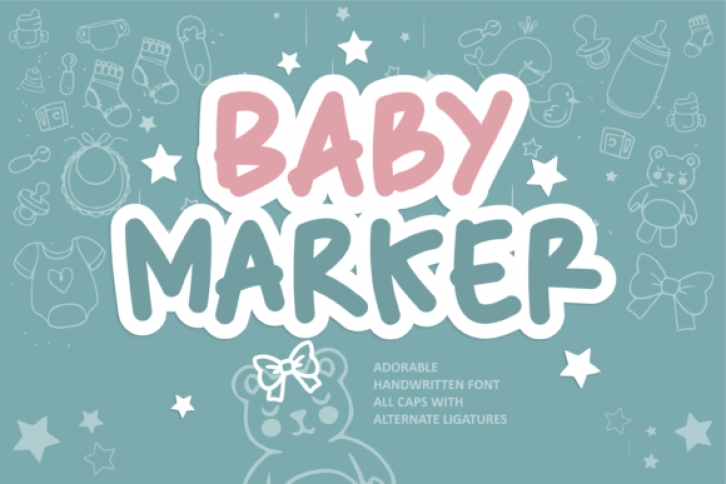
Baby Marker is a quirky and whimsical handwritten font. This original look will appeal to a wide range of crafty ideas, from letterheads and titles, to stationery.